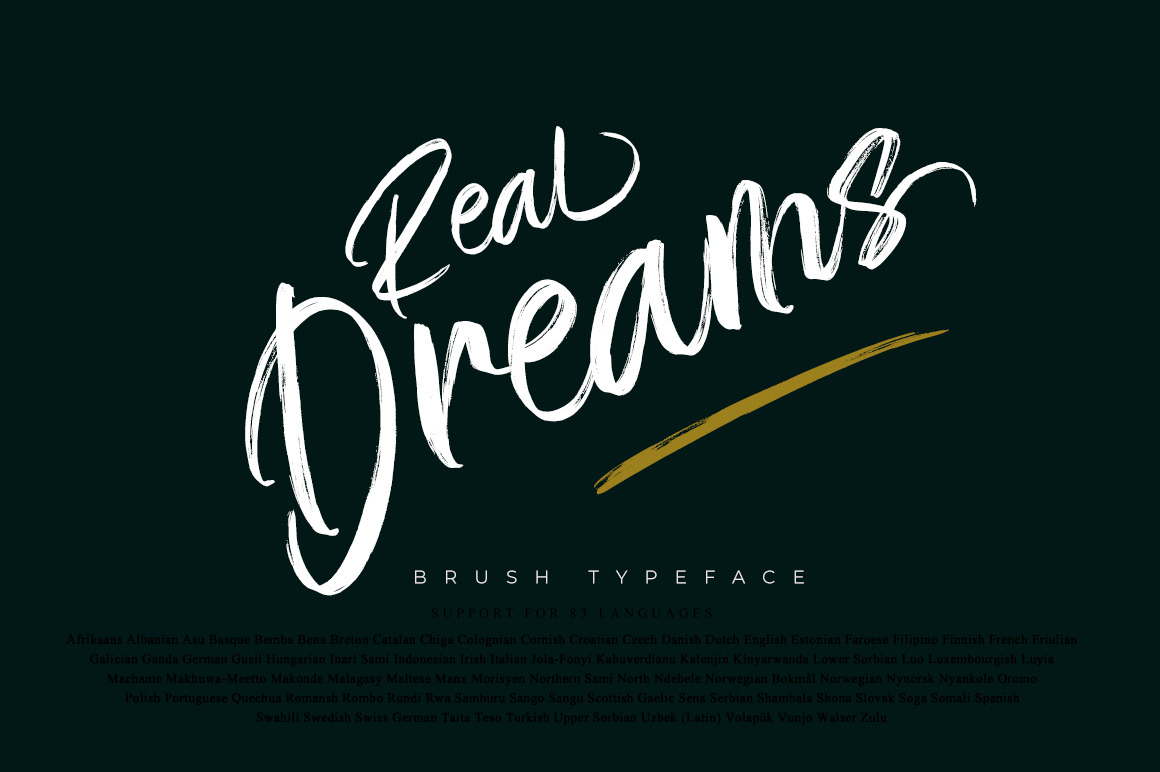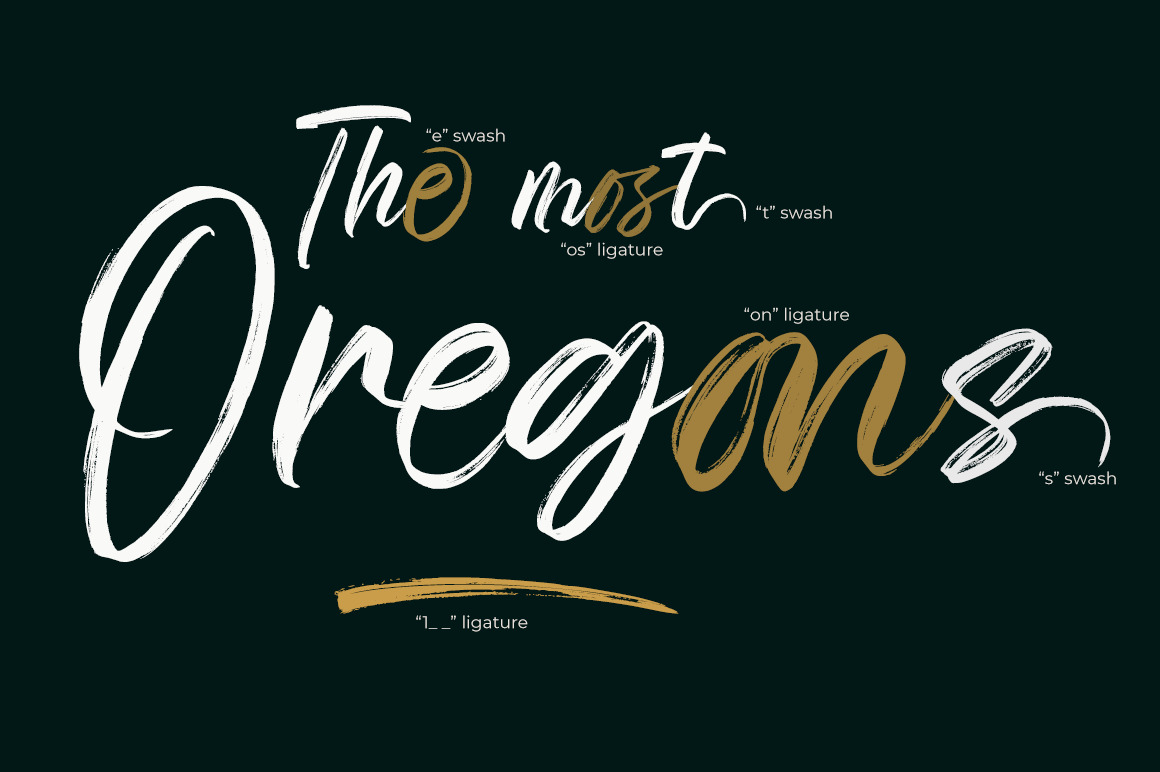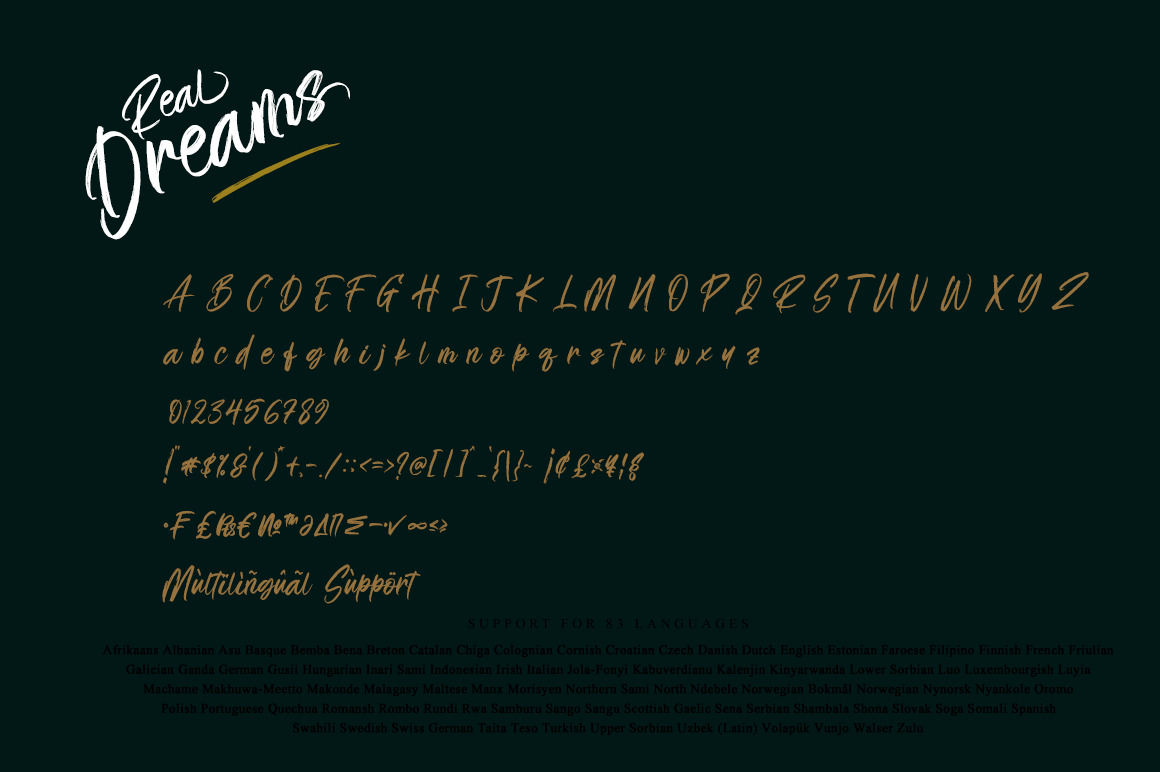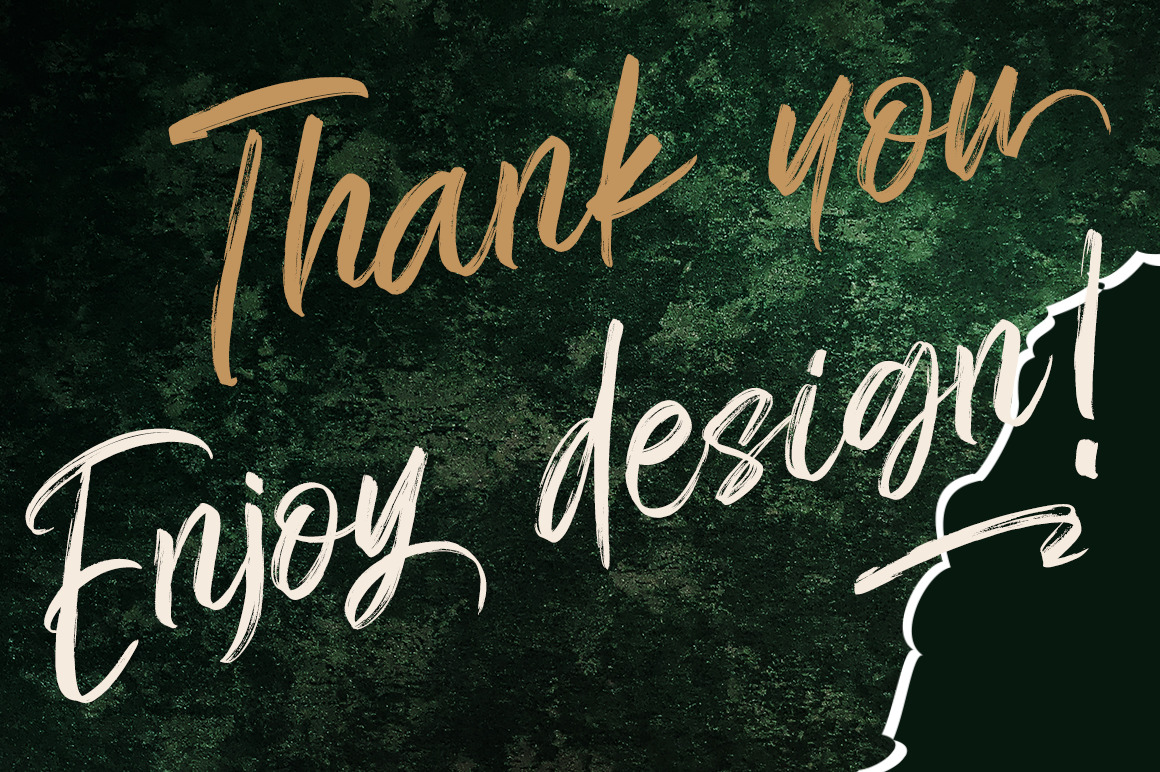
Real Dreams Font
Say hello to Real Dreams – A new Brush Typeface. This is an original handwritten work that has a modern, bold and unique aura. Made for any professional project branding. It is the best for logos, branding and quotes.
– Swash Collection
– Multilingual support for 83 Country
– Special underline